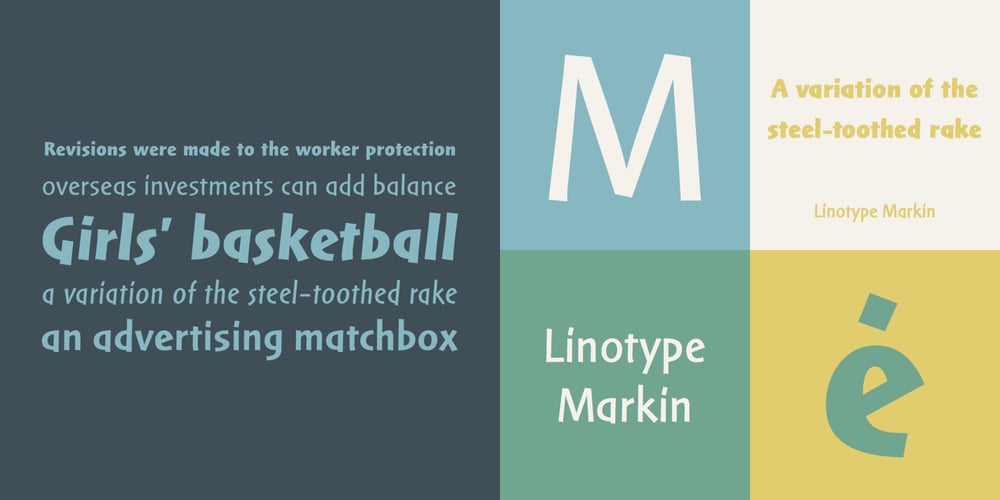
Linotype Markin Font Family was designed by Alfred Tilp and published by Linotype. Linotype Markin contains 6 styles and family package options. Markin is named after the writing utensil with which it looks like it was drawn, the marker. Its even strokes display characteristics similar to those of a sans serif typeface, but the stroke endings with their typical handwritten look give Markin a personal touch. Extremely versatile, it is the perfect choice for any work where individuality and spontaneity are the emphasis.